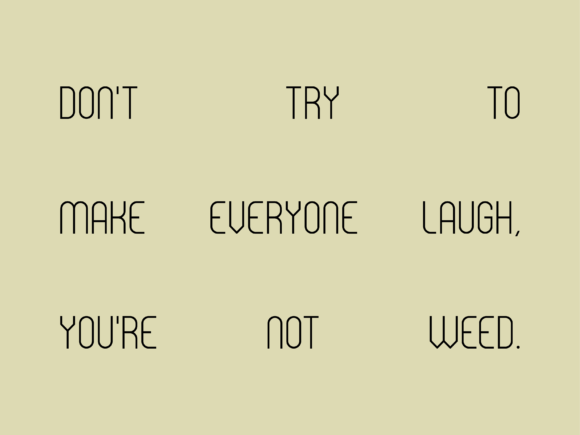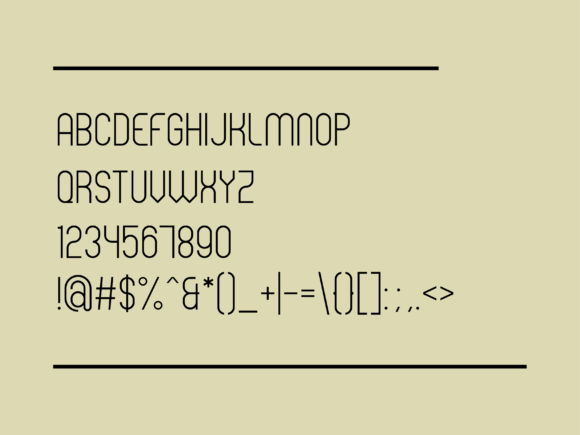
Introduction to Seventeen Font
Enter the Seventeen Font, a high-quality, modern sans serif font that’s sure to elevate your design game. With its clean lines and transparent background, this font is the ultimate design resource for any creative project. Whether you’re working on a logo, brochure, or website, the Seventeen Font is the perfect addition to your toolkit. And the best part? It’s available for free download, making it an invaluable resource for designers of all levels.
Key Features of Seventeen Font
- High-quality, hand-drawn design ideal for creative projects and design resources.
- Features a transparent background, making it easy to overlay on different images and backgrounds.
- Comes in a single font weight, suitable for various design applications, including logos, typography, and more.
Honest Review: Seventeen Font
I recently had the chance to work with the Seventeen Font, and I must say it’s a high-quality design resource that added a touch of sophistication to my creative project.
What works well: ✨ The font’s sleek and modern design makes it perfect for any project that requires a clean and professional look. I also appreciated the fact that it’s available for free download, which was a huge plus for me. The font’s transparent background also made it easy to work with.
However, there are a few limitations to consider: ⚠️ The font may not be suitable for projects that require a lot of bold or italic text, as it can become difficult to read. Additionally, the font’s modern design may not be the best fit for more traditional or vintage-themed projects.
Overall, I’m impressed with the Seventeen Font and would definitely recommend it to designers who are looking for a high-quality design resource for their creative projects. It’s a great addition to any design library, and I’m happy to have it as a part of mine.
The Seventeen Font is a high-quality design resource ideal for creative projects. It offers a unique and elegant style that can elevate your designs to the next level.
Tips for Getting the Most Out of Seventeen Font
To get the most out of the Seventeen Font, try using it in combination with other design elements, such as bold lines and bright colors, to create a visually appealing design.
The Seventeen Font is ideal for a variety of design projects, including:
- Brand logos and identities
- Magazine and newspaper headlines